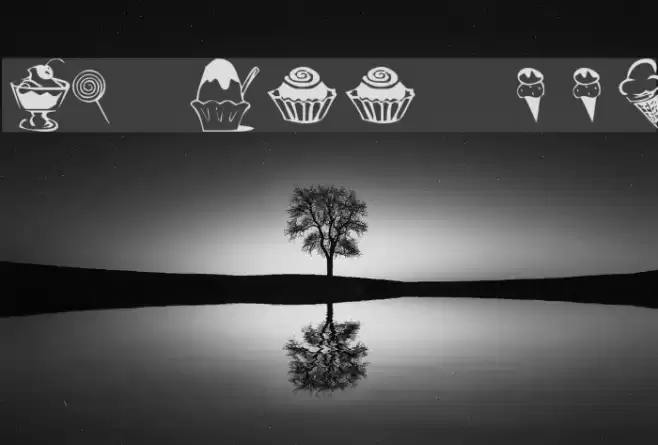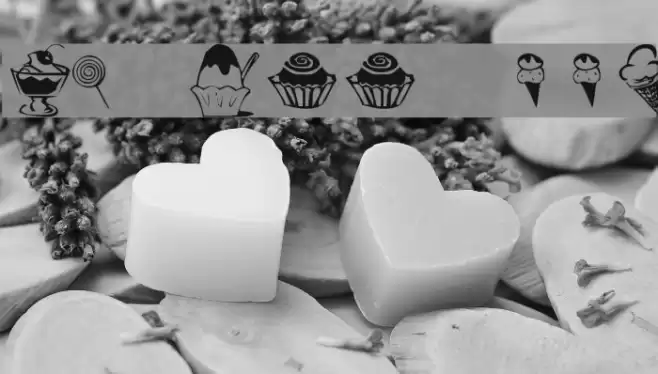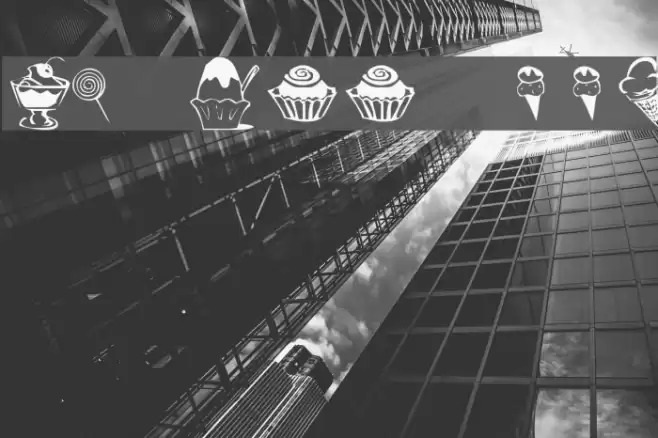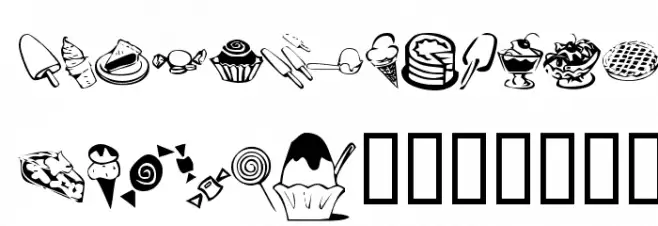
KR Sweet Tooth Font
KR Sweet Tooth Description
This is a decorative font featuring a playful assortment of sweet treats and desserts. Each character is represented by a unique illustration of various confections, including ice creams, cupcakes, lollipops, and candies. The style is whimsical and fun, making it ideal for projects that require a lighthearted and joyful touch. The illustrations are bold and clear, with a mix of detailed and simple designs, ensuring they stand out in any context. This font is perfect for adding a touch of sweetness to any creative project.
A whimsical decorative font featuring sweet treat illustrations from Uncategorized fonts.